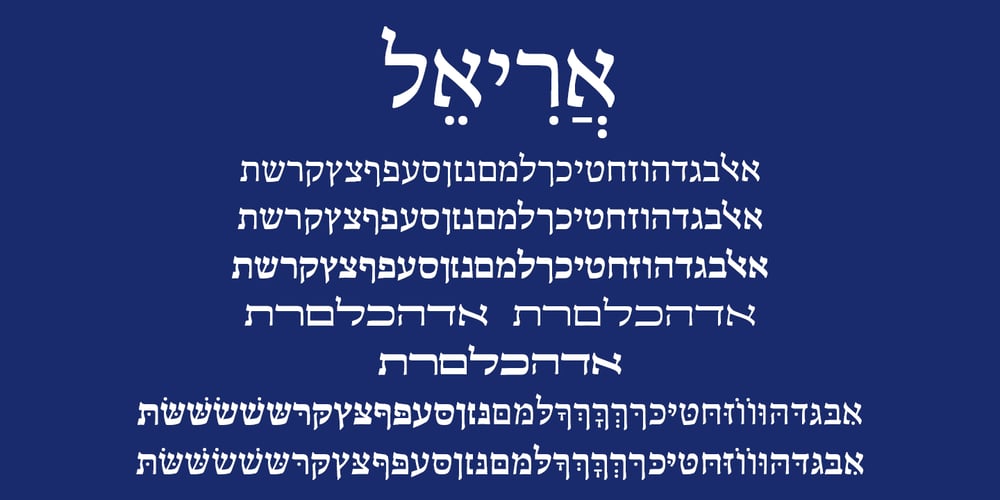
Hebrew Ariel Std Font Family was designed by Sami Artur Mandelbaum and published by Samtype. Hebrew Ariel Std contains 3 styles and family package options. This is a beautiful, modern, and super readable font.You can use it in any kind of text, from folders to prayer books.This font also has modern punctuation: shevana, kamats katan, dagesh hazak, and holam chaser.